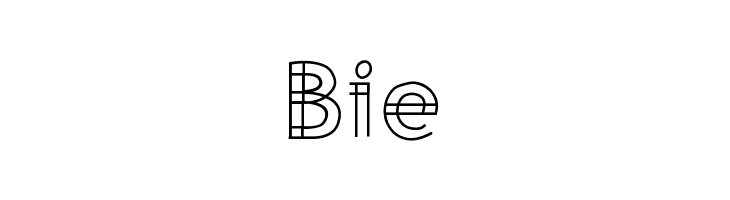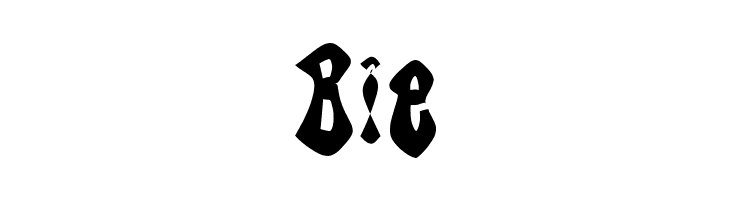
Print Dashed Font
Font by Blue Vinyl - Jess Latham - www.bvfonts.com
A playful dashed line font with a modern, informal style.
Blueprint Font
A clean, modern font with tall, narrow characters and consistent stroke width.
MLB Blue Jays Vintage Font
A bold, geometric font with a vintage sports team aesthetic.
Print Bold Font
Font by Blue Vinyl - Jess Latham - www.bvfonts.com
A bold, rounded font with a clean and approachable design.
Deco Font
Font by
danny91194
A bold, geometric Art Deco font with angular lines and a vintage flair.
CMU Serif Roman Font
A classic serif font with elegant serifs and balanced proportions, ideal for formal and academic use.
MLB Blue Jays Modern Font
A bold, modern font with a sleek and professional appearance.
Learning Curve Font
Font by Blue Vinyl - Jess Latham - www.bvfonts.com
A graceful script font with fluid, connected strokes and elegant curves.
Pocket Calculator Font
Font by Blue Vinyl - Jess Latham - www.bvfonts.com
A digital-style, geometric font inspired by classic calculator displays.
MLB Toronto Blue Jays Wilson Font
Ermedia Studio
A bold, geometric font with a double-line effect, ideal for sports branding.
Blue Highway Font
A modern, clean sans-serif font with geometric letterforms.
Blue Highway Bold Font
A bold, modern sans-serif font with clean lines and geometric shapes.
Print Clearly Dashed Font
A playful dashed line font ideal for educational and creative projects.
Blue Ocean Font
A bold, playful font with rounded, whimsical characters.
CMU Typewriter Text Regular Font
A monospaced typewriter-style font with a vintage, mechanical charm.
BlueStone Font
A bold, rounded font with a modern and slightly playful style.
Zipper blues Black Font
Font by Jacob Fisher - www.pizzadude.dk
Bold, geometric font with a futuristic and angular design.
Blue Melody Font
Font by Blue Vinyl - Jess Latham - www.bvfonts.com
A modern, high-contrast font with elegant, elongated letterforms.
Dance Craze BV Font